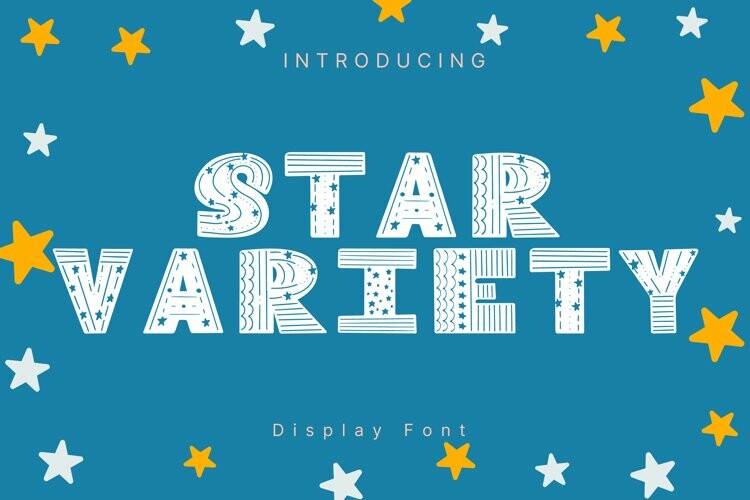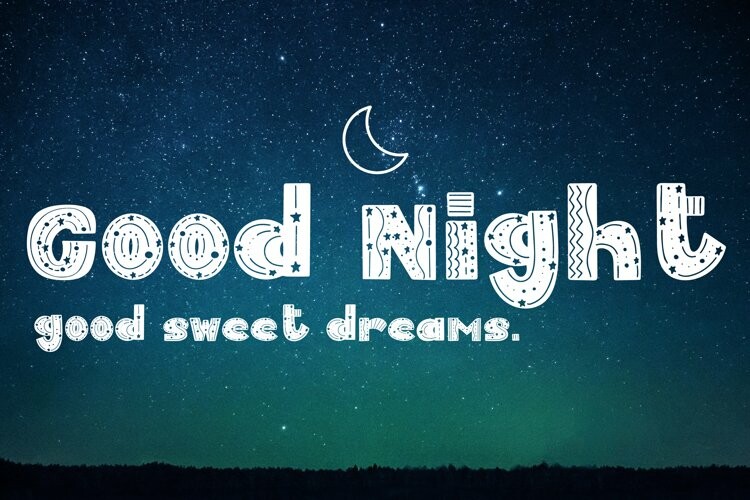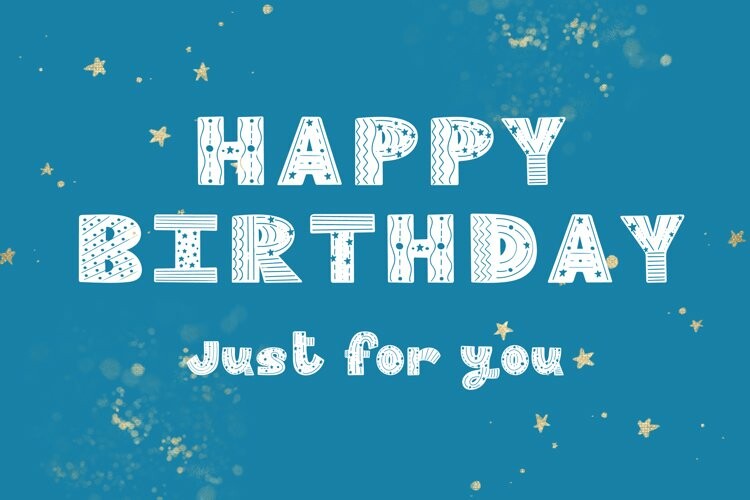
Star Variety Font
Star Variety FontStar Variety Style is a whimsical and clean handwritten font. It can easily be matched to an incredibly large set of projects, so add it to your creative ideas and notice how it makes them stand out!